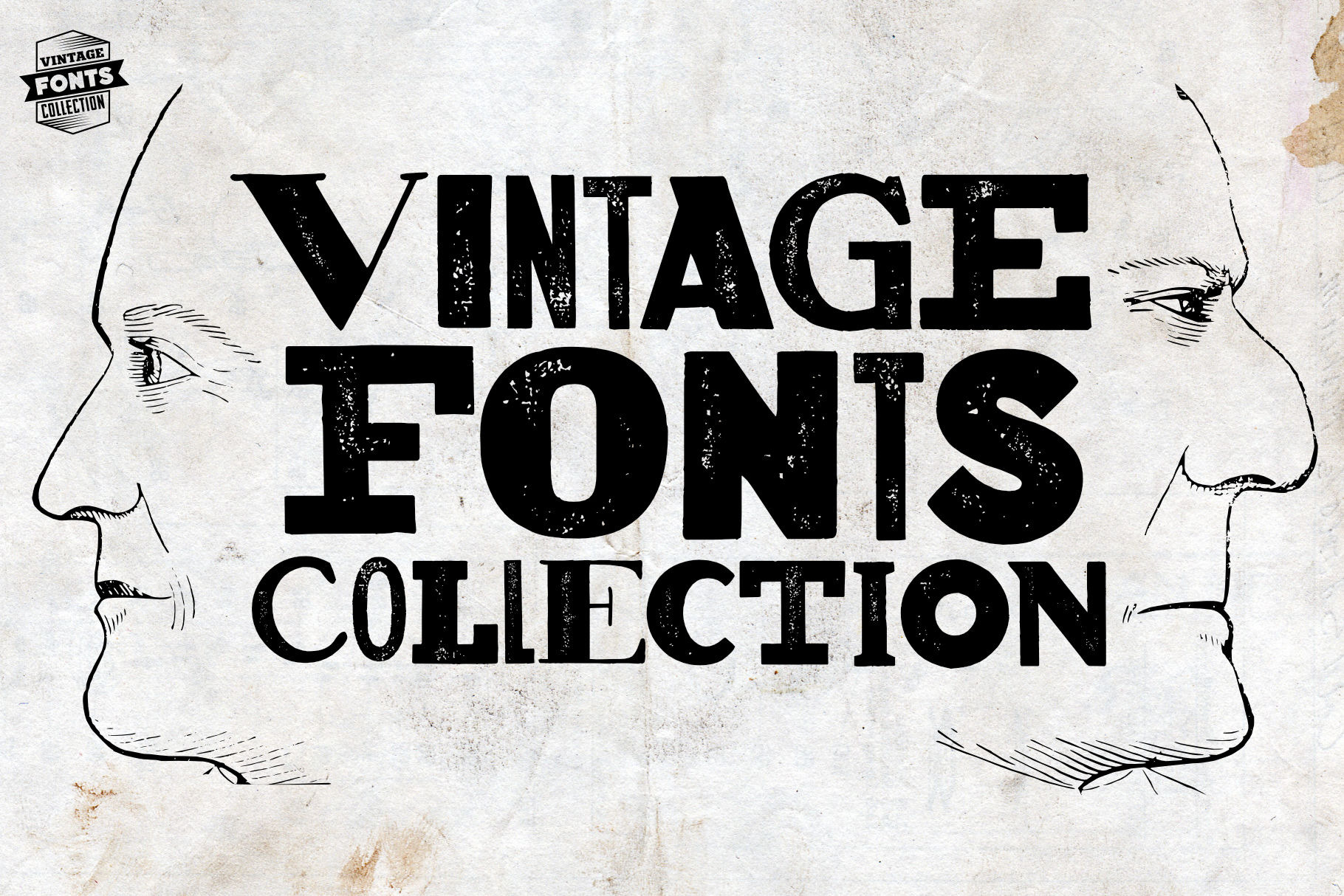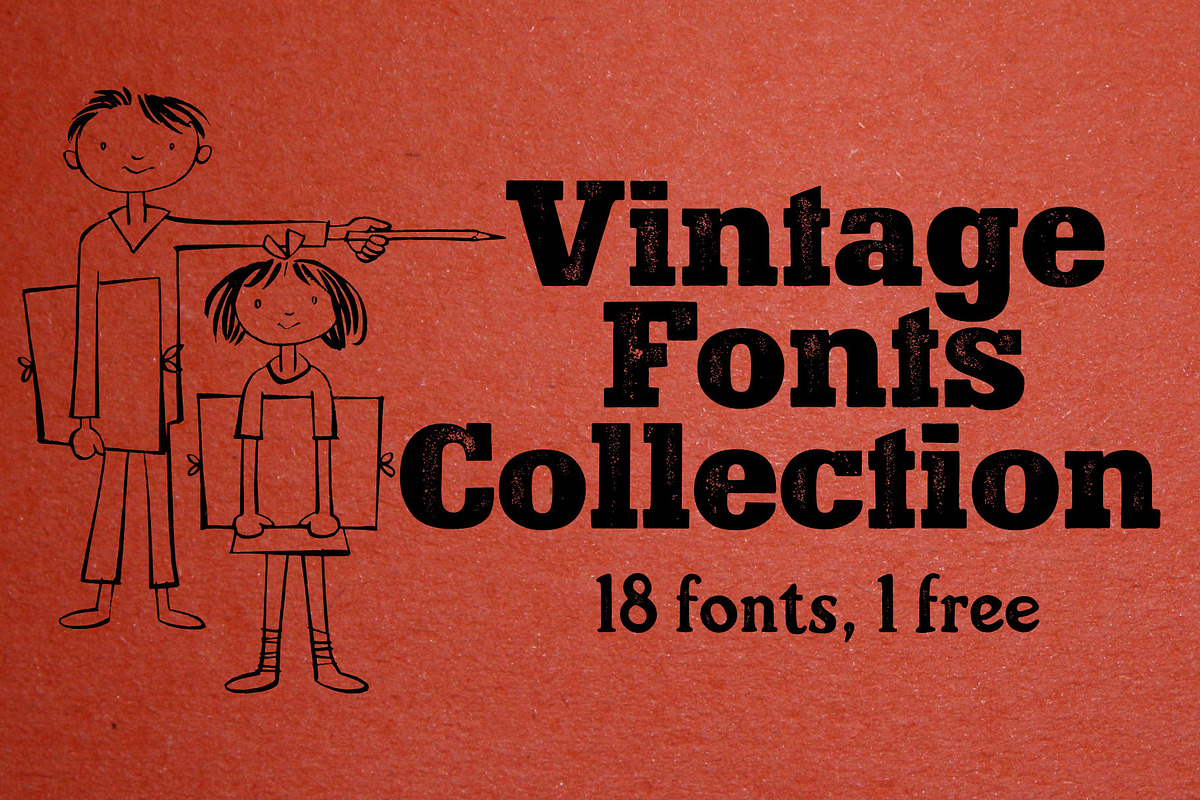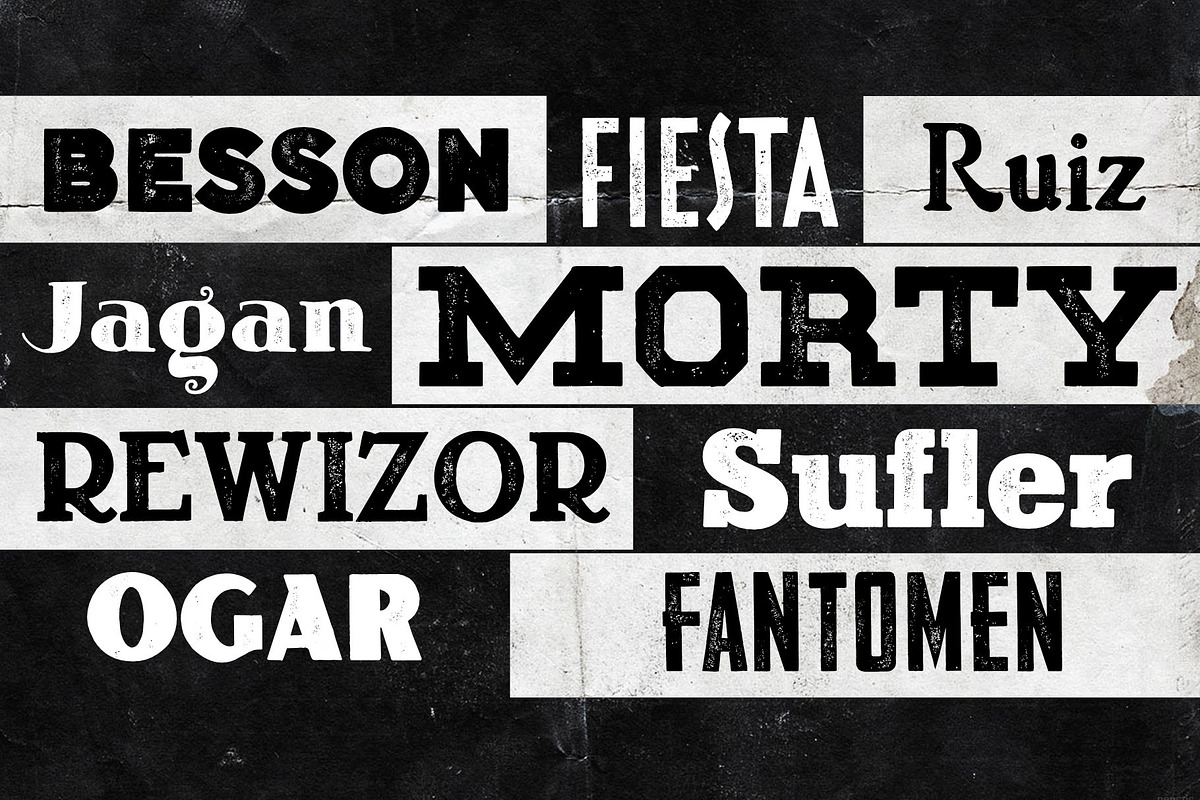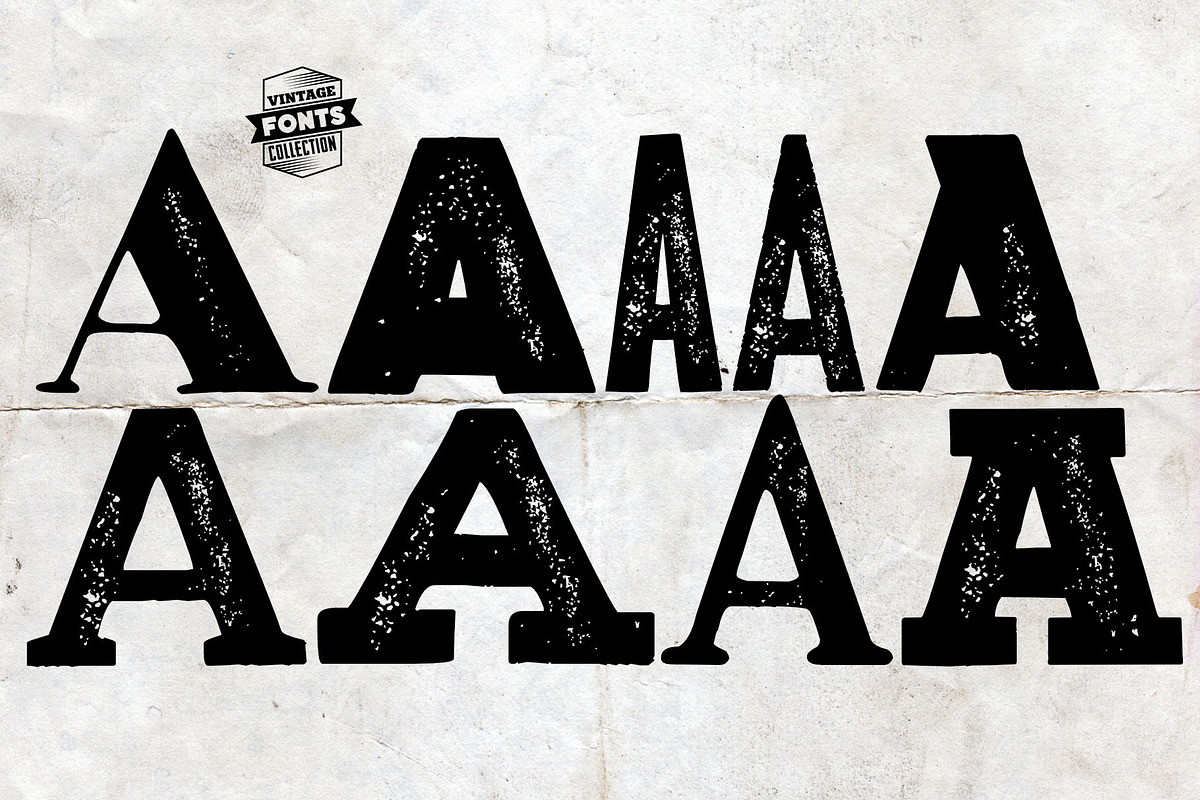
Vintage Fonts Collection - 18 fonts
Vintage Fonts Collection is a set of 18 hand-drawn fonts inspired by vintage ads, old newspapers and retro sign painting. Every lowercase letter has three variations. When the font is used in OpenType-savvy applications, the 3 variants of glyphs are automatically alternated to achieve a random-like effect.
Language support includes Western, Central and Eastern European character sets, as well as Baltic and Turkish languages.